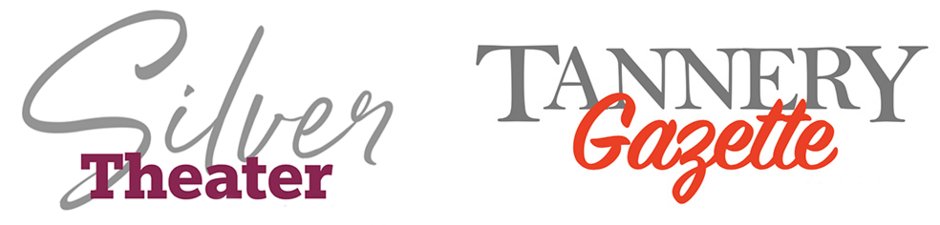
Best Fonts For Logos | Myfonts
Best Fonts For Logos
Why fonts are important to a brand
A logo is the heart of a brand. It is the strongest single image that represents a business. Many times, it’s the first impression someone has about a business. Logos should be memorable and separate a company from the competition.
MyFonts’ type experts have distilled the 270,000 fonts available from us, to the best fonts to consider for your next logo project.
How to choose the best font
If you can afford it, have a custom design created explicitly for your logo. If you can’t afford a custom design, choose a typeface that is both distinctive and memorable.
Although the most obvious aspect of a brand’s projection is its name, other things also merit attention: shape, symbol, color and letters contribute to what has been called visual equity, or the value derived from visual form.
Your logo should be distinctive but many of the most distinctive fonts have a short life, and then become about as fashionable as tie-dyed T-shirts. Brands are supposed to last a long time. Pick a font that will not look out of date in two or three years.
Don’t Assume Customers See Your Logo the Same Way You Do
Don’t assume that typefaces have personalities. If you are creating a logo for a tire store, you may gravitate to a bold sans serif typeface. They’re masculine right? Maybe, but they are also overused for automotive products.
What if the client is your local church? A nice calligraphic typeface like Apple Chancery might be good for their logo – and it would be about as distinctive as a glass of milk. A typeface like Diotima would be just as appropriate – and would give the church a distinct brand.
Proof several ideas to find the right font
How many fonts should be used in a logo?
Sometimes two fonts are better than one. Two different fonts, especially if they contrast with each other, can create a powerful and memorable image. Experiment with different fonts. A little investment in time can pay off with something very special.
More than two fonts in a logo rarely works. The logo becomes fussy and difficult to remember. Minimalism is almost always the best guideline for logos.
What is the Difference Between a Logo and a Wordmark?
A logo is a visual representation of a company’s name, often featuring an icon or symbol associated with the brand. Nike’s swoosh is one of the most iconic logos in the world.
On the other hand, a wordmark is the font-based rendition of a logo. The BBC wordmark is an excellent example of a font-based logo.
Sometimes icon logos are combined with wordmarks. Look no further than the FedEx logo with its negative space to form an arrow between the “E” and “x,” to convey speed and a strong sense of direction.
Are Logos Expensive to Create?
Logos are generally expensive to have designed. Although, Nike only paid, designer Carolyn Davidson, $35 for its swoosh logo. (Years later, She was also given shares in the company.) Font-based logos can be as inexpensive as the price of the font.
MyFonts’ type experts have distilled the 270,000 fonts available from us, to the best fonts to consider for your next logo project.
What Font Size is Best for Logos?
Logos can be on billboards, brochures, and business cards. Choose a font that will be at home in a wide range of sizes. Fonts with very fine strokes, small counters (the insides of letters like a and e) and diminutive x-heights (the proportional size of lowercase letters compared to capitals), tend to not translate well to small sizes and mobile device screens.
In some cases you may want to create two font-based logos. One for large sizes and one with a little extra letterspacing for small sizes. This, however, would not work for script font logos. Never letterspace scripts.
What Fonts are Trending for Logos in 2024 and Beyond?
Lately it seems that every new typeface is either a sans serif or a script. Where did all the stalwart, straightforward – or even quirky and charmingly fancy – serif typefaces go? Are graphic communicators doomed to a world without serifs?
Of course not. Serifs are here to stay. But design creatives are currently more interested in the serifless variety of typefaces. They are easier to work with than their serifed brethren. Sans serif typefaces also keep their good looks in a wide range of sizes (important for logos). In addition, sans serif font families are generally larger that serif families, providing more weights and proportions to choose from.